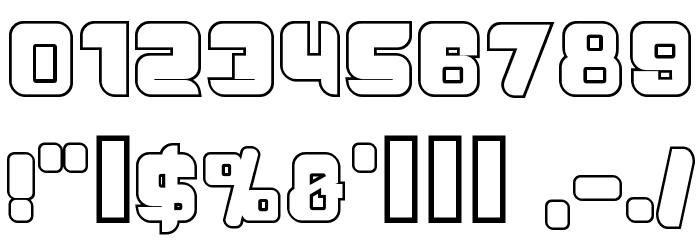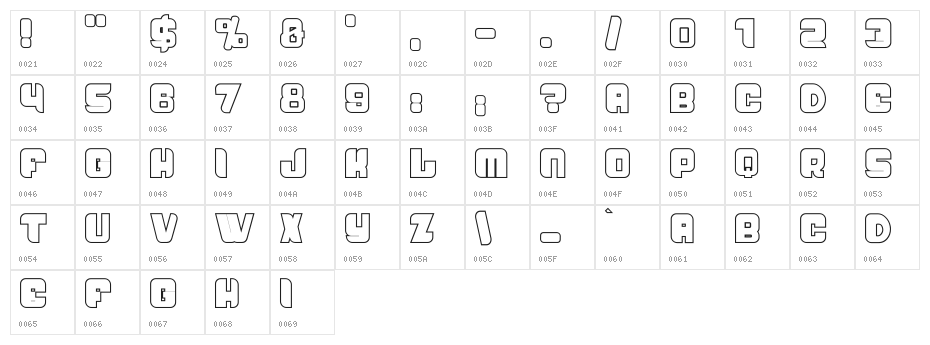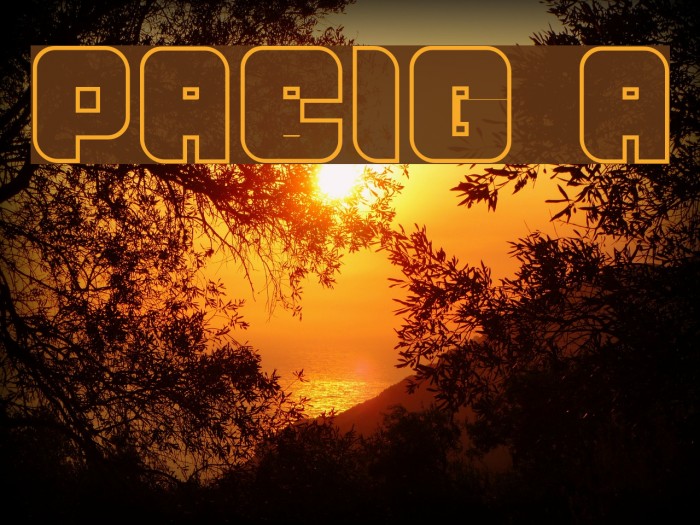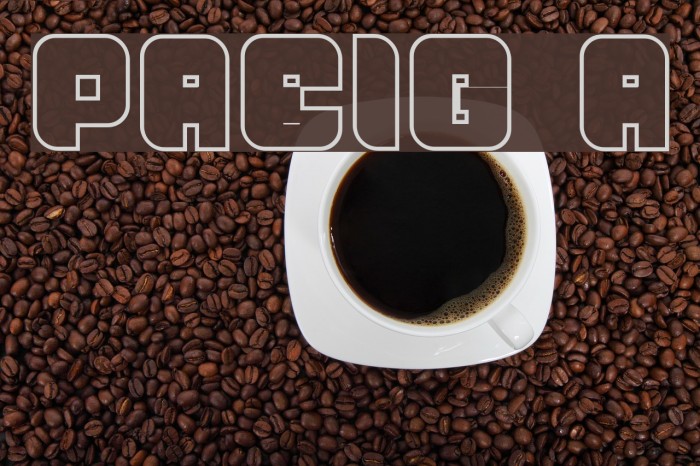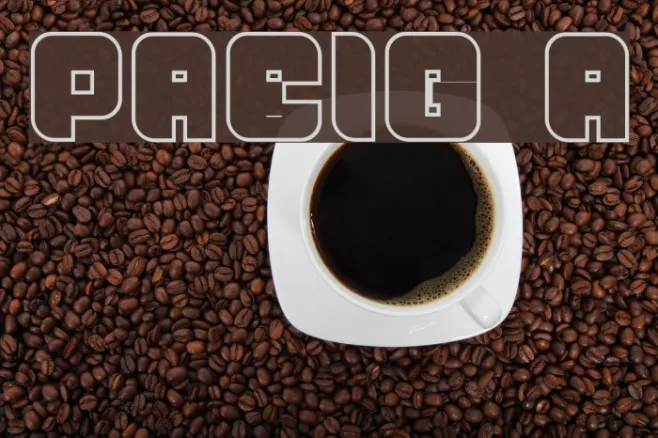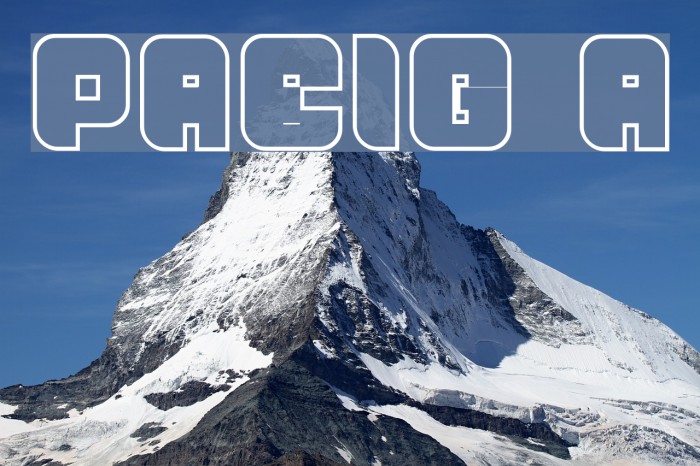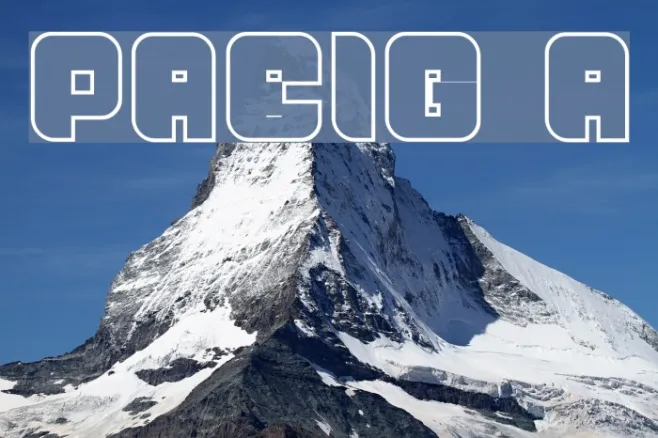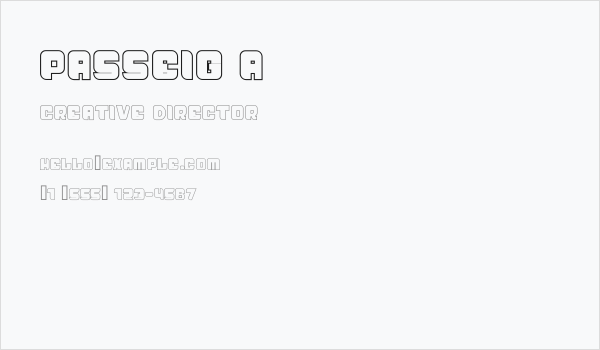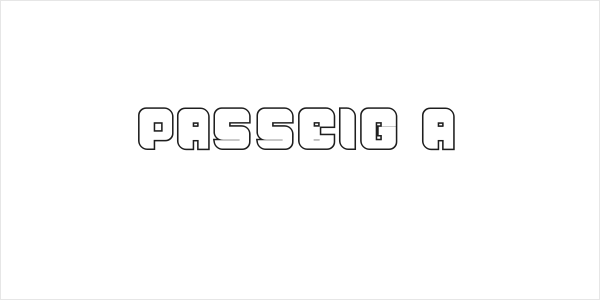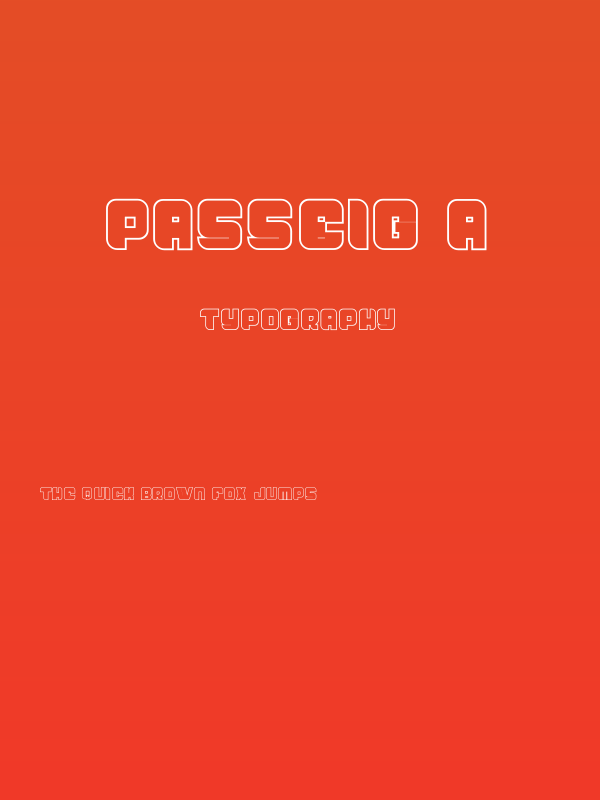
Passeig A Font
Passeig A Description
This font features a bold, geometric design with a distinct outline style that gives it a modern and futuristic appearance. The characters are uniformly structured, with a consistent thickness throughout, creating a cohesive look. The uppercase and lowercase letters maintain a similar style, with rounded edges and a blocky form that enhances readability. The numerals and special characters follow the same design principles, ensuring uniformity across all glyphs. This font's unique outline effect adds a layer of depth, making it stand out in various design applications.
| Proposed Projects | Ideal for branding, posters, headlines, and digital media where a modern and eye-catching font is needed. |